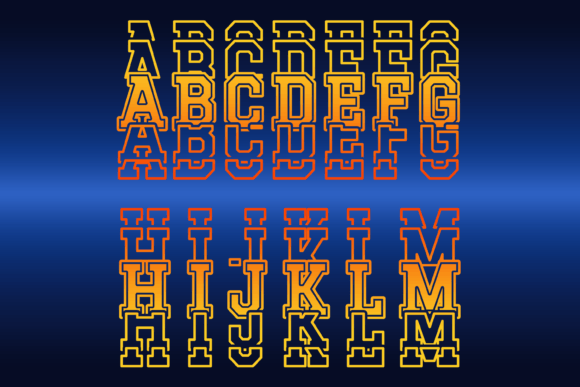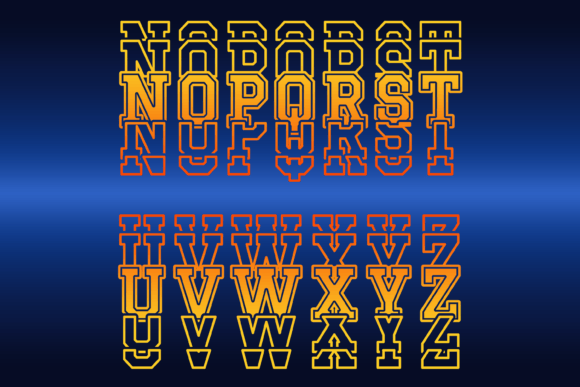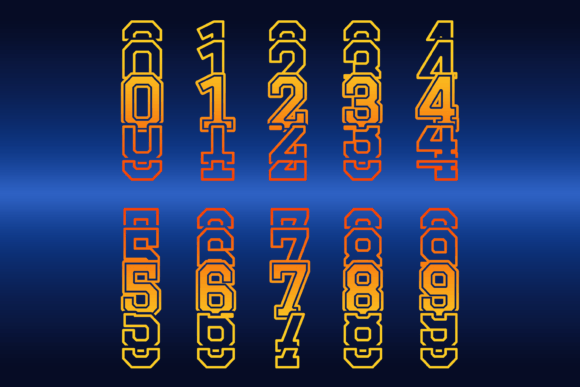
Introduction to Overlap Font
Have you ever stared at a blank canvas, waiting for inspiration to strike? For many of us, the blank page can be the most daunting part of a creative project. But what if you had the perfect tool to break through that barrier? Enter the Overlap Font, a game-changing design resource that’s about to revolutionize your next DIY craft or design project.
Key Features of Overlap Font
- High-quality design resource for creative projects, featuring a unique and stylish font
- Transparent background, allowing for easy layering and customization in design projects
- Unique characteristic: the font’s overlapping design elements create a visually striking effect, perfect for adding depth and interest to creative projects
- Designed to be highly versatile, making it suitable for a wide range of design applications, from logos to typography
Honest Review: Overlap Font
As a designer, I’m always on the lookout for high-quality design resources that can elevate my creative projects. I recently stumbled upon the Overlap Font, and I’m excited to share my honest review with you.
- ✨ Beautifully designed with a unique style that can add a touch of elegance to any design project
- ✨ Comes with a transparent background, making it easy to customize and integrate into various design elements
- ✨ Can be used for a variety of design projects, from logos to infographics and beyond
- ⚠️ Limited customization options, which may not be ideal for designers who like to get creative with their fonts
- ⚠️ Not suitable for large-scale text or body copy, as it’s primarily designed for decorative use
Overall, I’m impressed with the Overlap Font’s unique design and versatility. While it may have some limitations, it’s a great addition to any designer’s toolkit. If you’re looking for a high-quality, free design resource, the Overlap Font is definitely worth checking out.
Tips for Getting the Most Out of Overlap Font
Use high-quality images with transparent backgrounds to create a seamless overlap effect.
Experiment with different font styles and sizes to achieve a unique look.
Combine Overlap Font with other design resources, such as graphics and illustrations, to create a stunning visual composition.
Overlap Font is ideal for creative projects, such as:
Infographics and data visualizations.
Brochures and flyers.
Presentations and reports.
Web design and development.